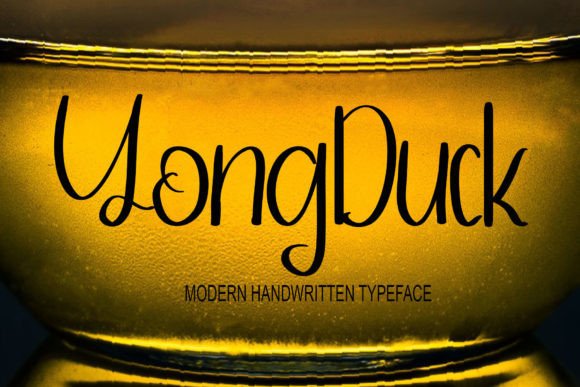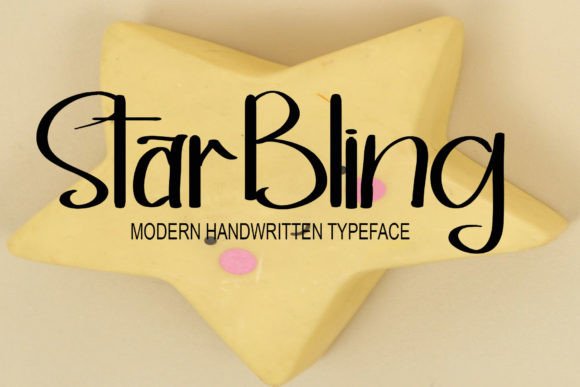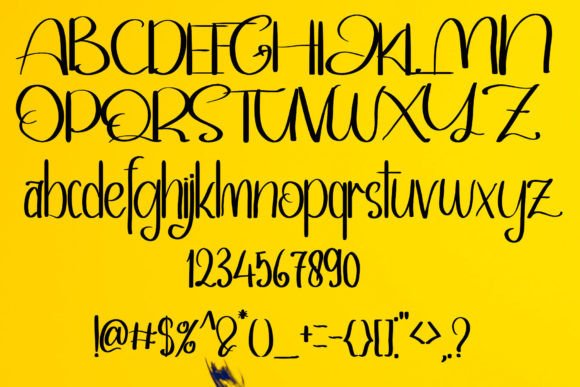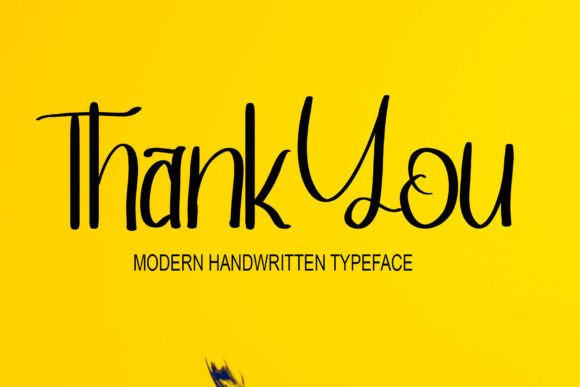
Gosong Font: A Simple yet Stylish Handwritten Font for Designers and Crafters
In the world of typography, fonts play a crucial role in conveying the tone and personality of a brand or design. For designers and crafters looking for a unique and stylish font to elevate their projects, Gosong Font is an excellent choice. In this article, we’ll explore the features and benefits of Gosong Font, and how it can be used to create stunning designs for various applications.
What is Gosong Font?
Gosong Font is a beautifully crafted handwritten font created using a tablet. The font’s simplicity and elegance make it perfect for a wide range of design projects, from websites and wedding invitations to business cards, signatures, and advertisements. Despite its simple appearance, Gosong Font exudes a cool and stylish vibe that is sure to impress.
Key Features of Gosong Font
• Handwritten with a personal touch: Gosong Font is written by hand using a tablet, giving it a unique and personal feel.
• Versatile: The font can be used for various design projects, including websites, print materials, and digital media.
• Simple yet stylish: Gosong Font’s simplicity makes it easy to read, while its stylish appearance adds a touch of elegance to any design.
Use Cases for Gosong Font
Gosong Font is an excellent choice for various design projects, including:
• Websites: Use Gosong Font as a heading or body font to add a personal touch to your website.
• Wedding invitations: The font’s elegant appearance makes it perfect for wedding invitations, save-the-date cards, and other wedding-related designs.
• Business cards: Gosong Font is an excellent choice for business cards, as it adds a touch of professionalism and style.
• Signatures: Use Gosong Font to create custom signatures for your email, documents, or social media profiles.
• Advertisements: The font is suitable for product advertisements, promotional materials, and other types of ads.
Tips for Using Gosong Font
To get the most out of Gosong Font, here are some tips to keep in mind:
• Pair it with other fonts: Combine Gosong Font with other fonts to create a unique and visually appealing design.
• Experiment with font sizes: Play around with different font sizes to create visual hierarchy and emphasize important information.
• Use it consistently: Use Gosong Font consistently throughout your design project to create a cohesive look.
Gosong Font is a beautiful and versatile handwritten font that is perfect for designers and crafters looking for a simple yet stylish font for their projects. Its unique features, ease of use, and wide range of applications make it an excellent choice for various design projects. Whether you’re creating a website, wedding invitation, business card, or advertisement, Gosong Font is sure to elevate your design and add a touch of elegance.